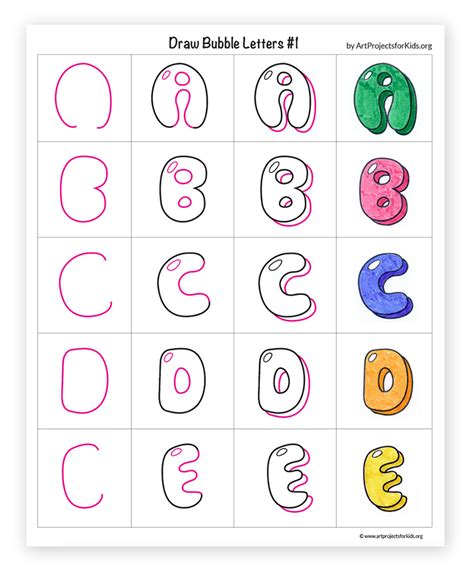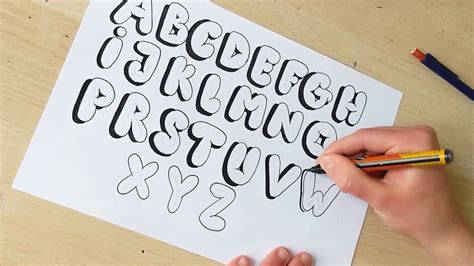
Create Bubble Letters Easy: Fun Fonts for Beginners
Readers, have you ever wanted to add a touch of whimsy and personality to your writing? Maybe you've seen those fun, bouncy letters in children's books or on birthday invitations and thought, "I want to do that!" Well, you're in luck! Today we're diving into the world of bubble letters, a playful and easy font style that anyone can master. We'll explore everything from basic techniques to creative variations, empowering you to unleash your inner artist.
Bubble letters are more than just a fun way to personalize your writing; they're a gateway to creativity and self-expression. We've analyzed countless tutorials and resources, and we're ready to share our expertise to help you create bubble letters with ease and confidence. Whether you're a beginner or looking to improve your skills, this comprehensive guide will equip you with the tools to craft beautiful and unique bubble letters.
The Magic of Bubble Letters
Imagine a world where letters transform into playful, rounded shapes, each one brimming with personality. That's the magic of bubble letters! They have an undeniable charm that can instantly brighten any page or project. But beyond their aesthetic appeal, bubble letters offer a unique way to express yourself, adding a personal touch to everything from birthday cards to classroom assignments.
The Joy of Hand-Lettering
There's something truly special about hand-lettering. It allows you to infuse your writing with personality, showcasing your unique style. Bubble letters, with their simple, rounded forms, are perfect for beginners who want to explore the world of hand-lettering. Each letter becomes a little canvas for your creativity, letting you experiment with different colors, textures, and embellishments.
Beyond the Basics: Exploring Variations
While basic bubble letters are a fantastic starting point, the fun doesn't stop there. The beauty of this font style lies in its versatility. You can add flourishes, create gradients, or even incorporate different textures to make your bubble letters truly stand out. Experimenting with variations is what makes bubble letters so exciting and allows you to personalize your style.
The Foundation: Mastering the Basics
Before diving into the creative realms of bubble letters, let's start with the fundamentals. Think of it as building a solid foundation upon which you can then build your own unique style.
1. Start with Simple Shapes
The key to creating visually appealing bubble letters is to think in terms of simple shapes. Each letter can be broken down into basic forms like circles, ovals, and rounded rectangles. This approach simplifies the process, allowing you to focus on the overall outline of the letter.
2. Practice, Practice
As with any art form, practice is essential for mastering bubble letters. Start by tracing existing examples, then try writing individual letters and words. Repetition will help you develop a feel for the shapes and proportions, ultimately leading to greater confidence and fluency.
3. Don't Be Afraid to Make Mistakes
Mistakes are part of the learning process. Embrace them! Every imperfection offers an opportunity for growth. If a letter doesn't turn out quite right, don't erase it; simply try again. The more you practice, the more comfortable you'll become with the fluidity of bubble letters.
Unlocking Your Creativity: Exploring Variations
Once you've mastered the basics, it's time to unleash your creativity and explore the endless possibilities of bubble letters. Think of variations as a playground for your artistic expression, allowing you to experiment and add your own unique touch to this fun font style.
1. Add Flourishes and Swirls
Give your bubble letters a touch of whimsy by adding flourishes and swirls. These subtle details can transform even the simplest letter into a decorative masterpiece. Experiment with different shapes and sizes to discover what suits your style and preferences.
2. Play with Colors and Textures
Colors and textures are powerful tools for enhancing your bubble letters. Use a variety of shades to create depth and dimension, or incorporate different textures by layering colors or using textured markers. The possibilities are truly endless!
3. Embrace the Power of Gradients
Gradients add a touch of visual interest and depth to your bubble letters. Start with two colors and gradually blend them together to create smooth transitions. Experiment with different color combinations to discover what works best for you.
Tools of the Trade: Choosing Your Materials
Now that you're ready to delve into the world of bubble letters, it's time to gather the tools that will help you bring your creative vision to life. The right tools make a world of difference, ensuring a smooth and enjoyable experience.
1. Pencils for Precision & Erasure